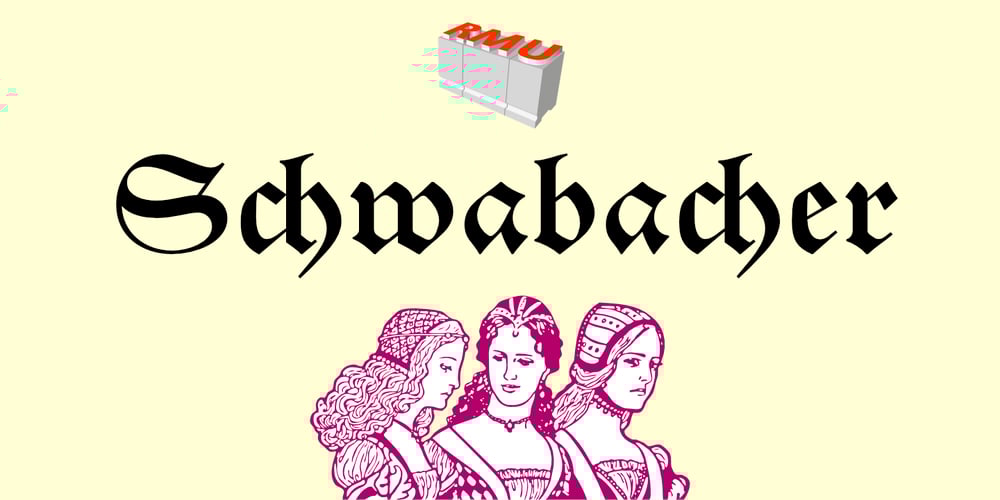
Schwabacher
Schwabacher Font Family was designed by Ralph M. Unger and published by RMU. Schwabacher contains 1 styles and family package options. One of my favorite blackletter fonts – Schwabacher – redrawn and redesigned, whereby I took care to stick to the original forms as close as possible. This font which has its roots in the 15th century represents at the most the uprising humanism in this period. To get access to all ligatures, it is recommended to activate both Standard and Discretionary Ligatures. By using the OT feature Stylistic Alternatives you get the historical German umlauts which are small e above a, o, u, A, O, and U. This font contais also oldstyle figures.